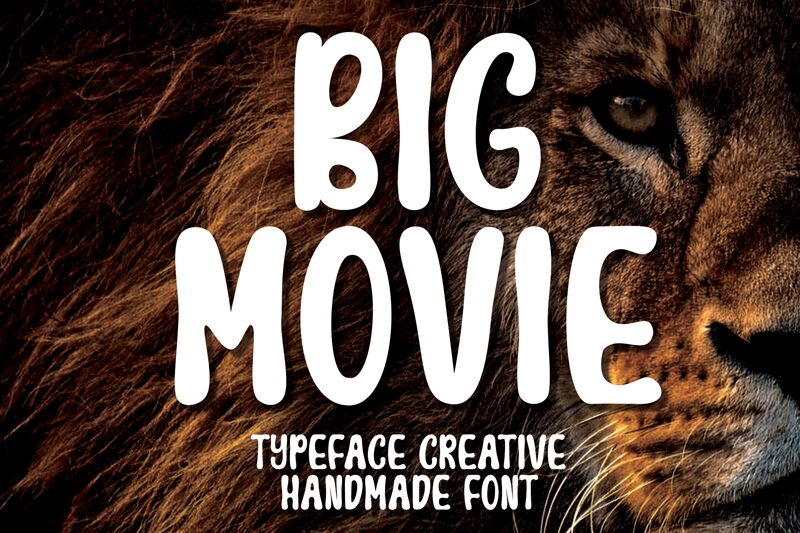
Big Movie
Big Movie font designed by Scratchones is a display font for graphic designers. The typeface presents itself with bold letters that have an uneven textural appearance for vintage but whimsical visual appeal. This condensed and heavy character set looks in tune with retro vibes and cartoonish influence.
Use this free condensed font for movie titles, toy packaging, animated posters, gaming apps, book covers, magazine headers, invitations for kids’ parties, video tags, logos in multiple domains like entertainment or corporations.